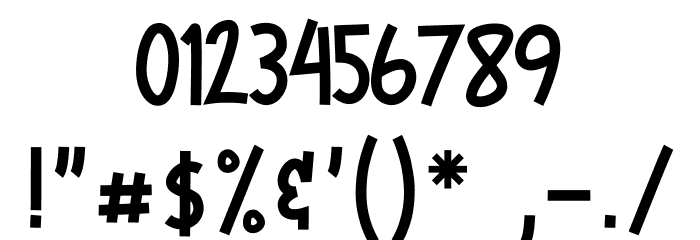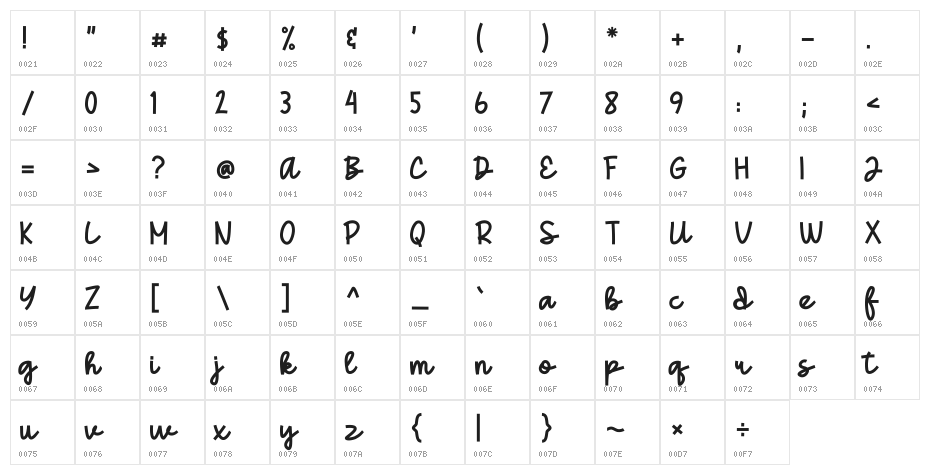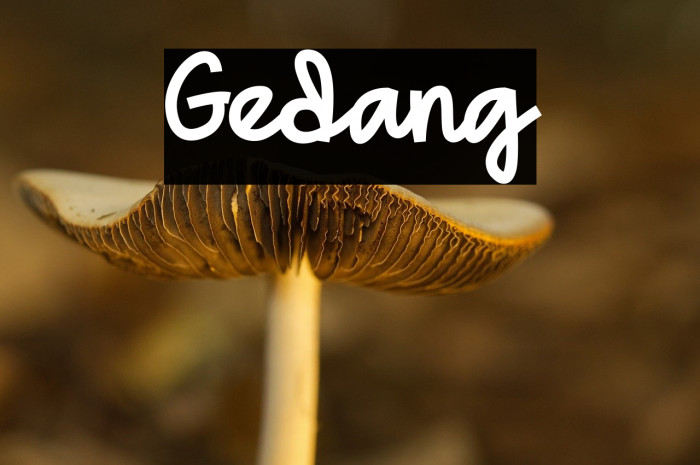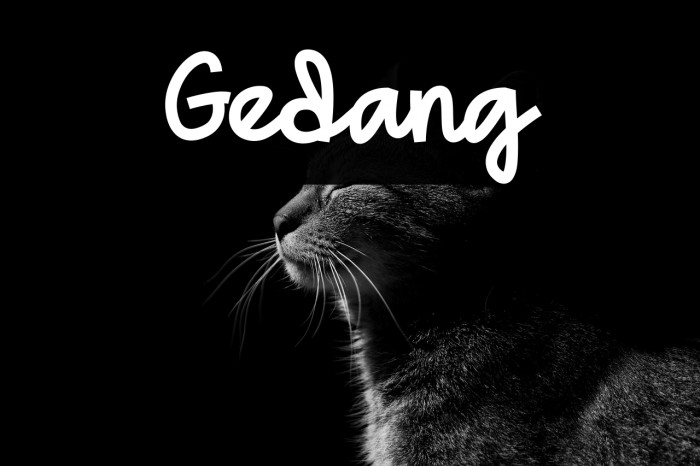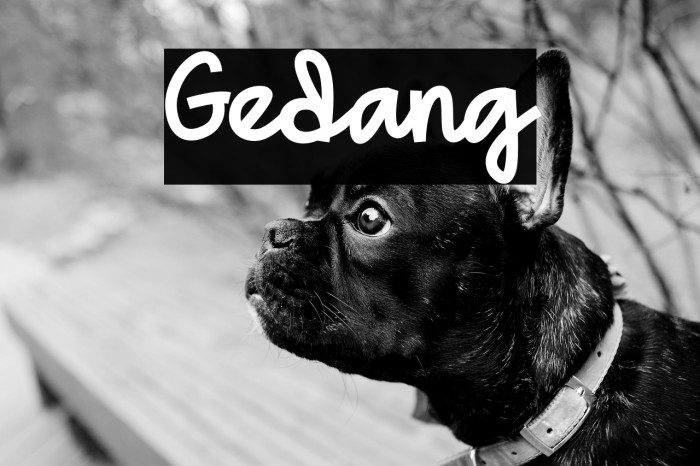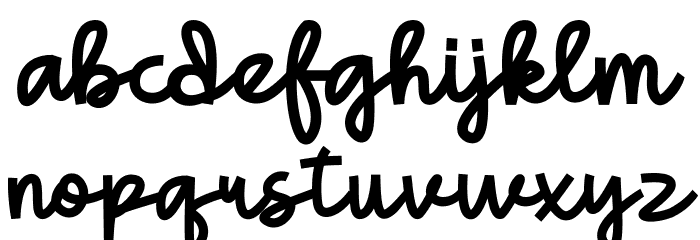
Gedang Font
Gedang Description
This font features a bold and playful script style with a handwritten appearance. The letters are connected in a fluid manner, giving it a casual and friendly feel. The uppercase letters are slightly larger and more pronounced, while the lowercase letters maintain a consistent flow. The numbers and special characters are designed to match the overall style, ensuring a cohesive look across all text elements. The strokes are thick and consistent, providing a strong visual impact. This font is ideal for projects that require a personal touch or an informal tone.